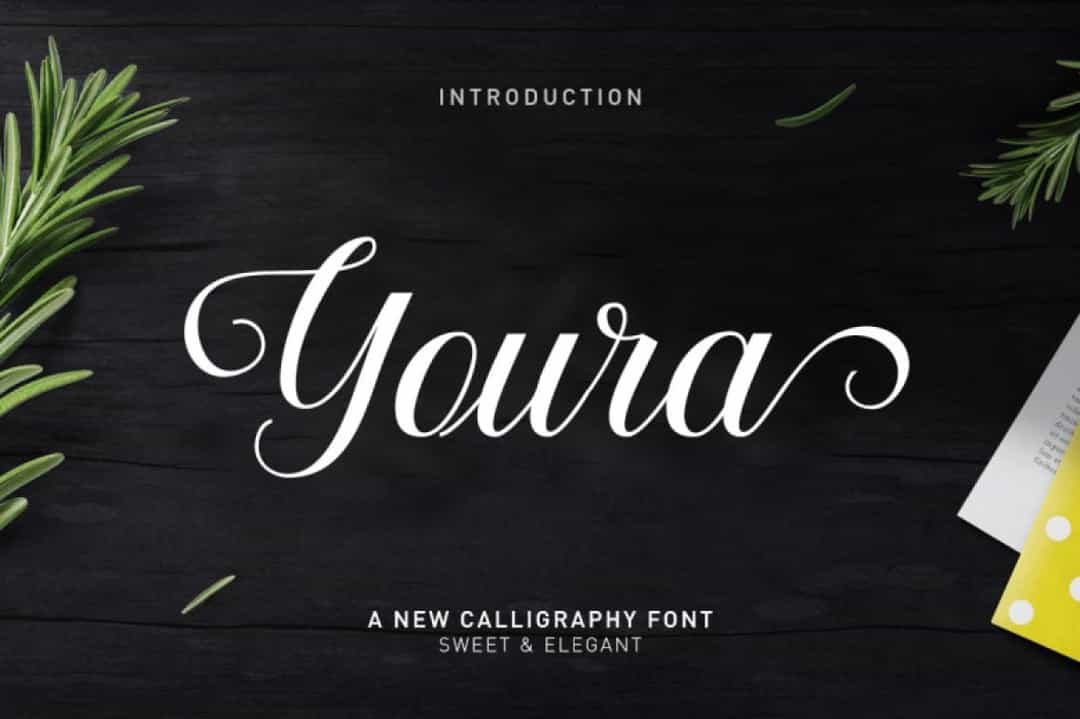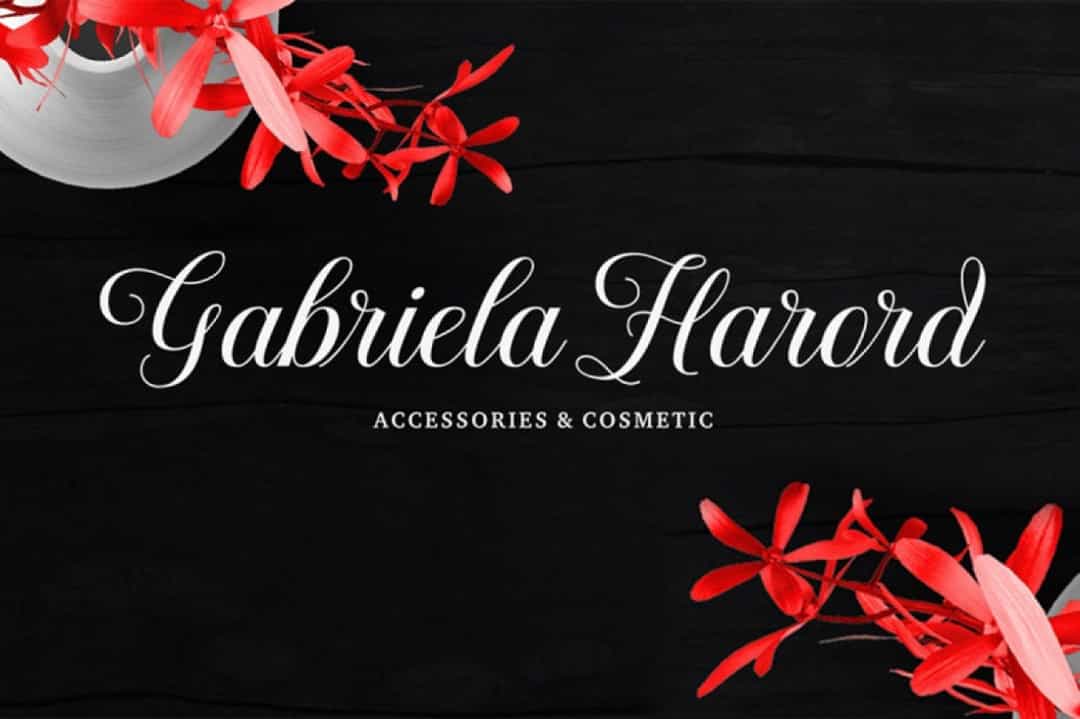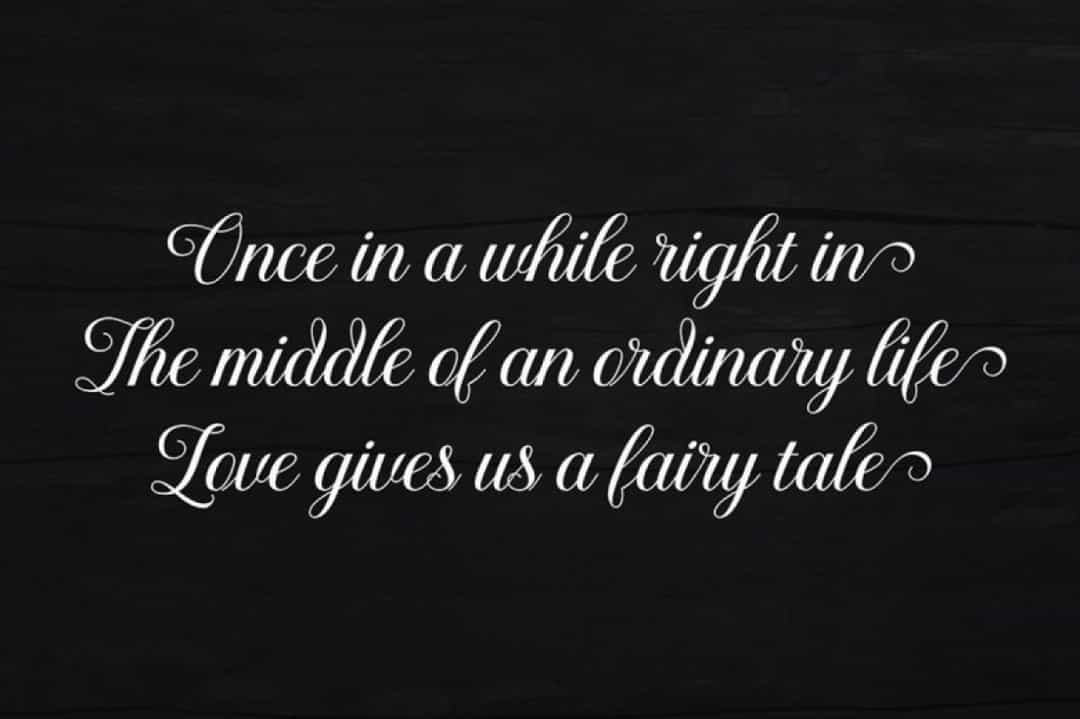
Youra is an exquisite and elegant calligraphic typeface designed for calligraphy. Be inspired by its playful beauty; Youra offers the ideal design solution for all your branding, logo design, modern advertising campaigns, poster quotes titles for poster quotes design posters books covers editorial design web blog card or T-shirt needs and any handwritten needs!